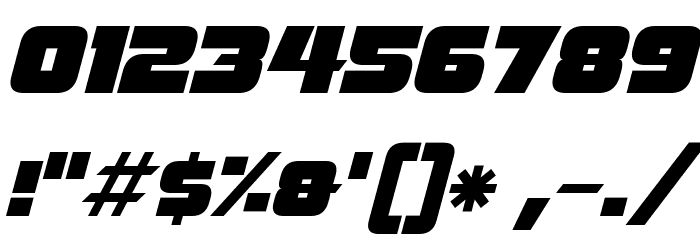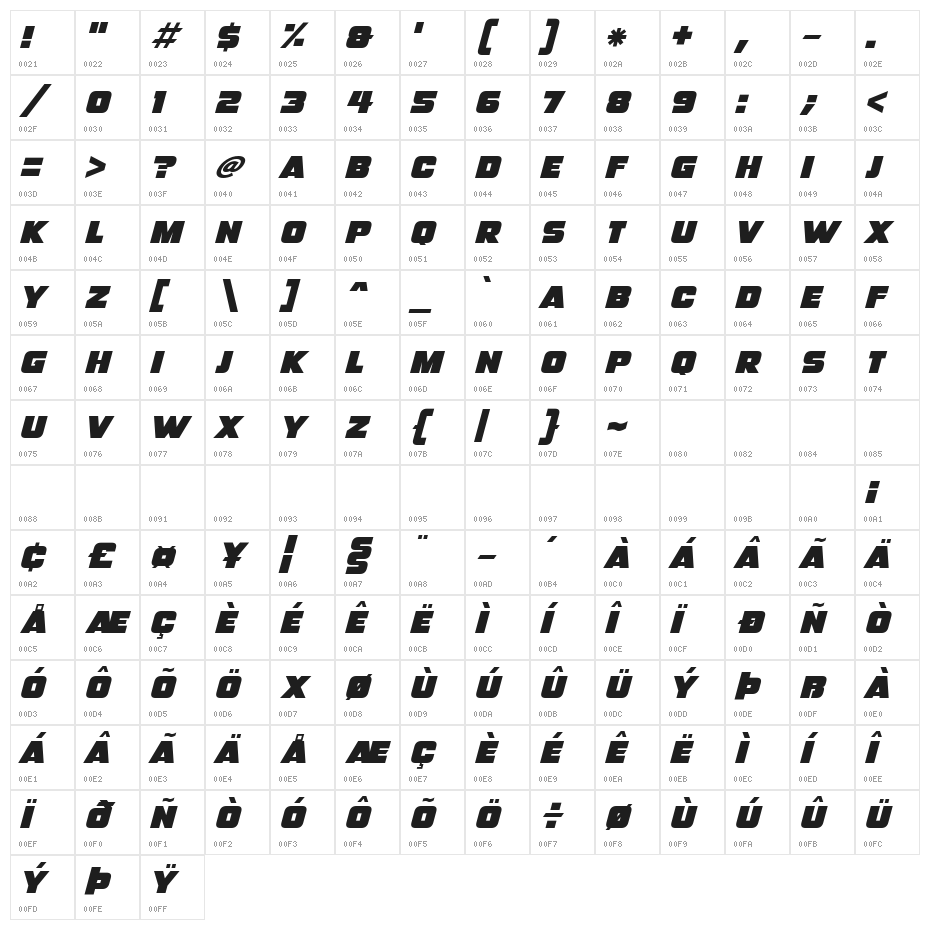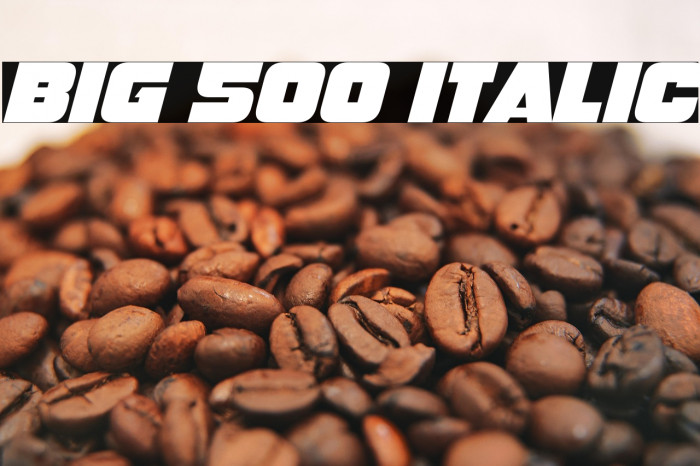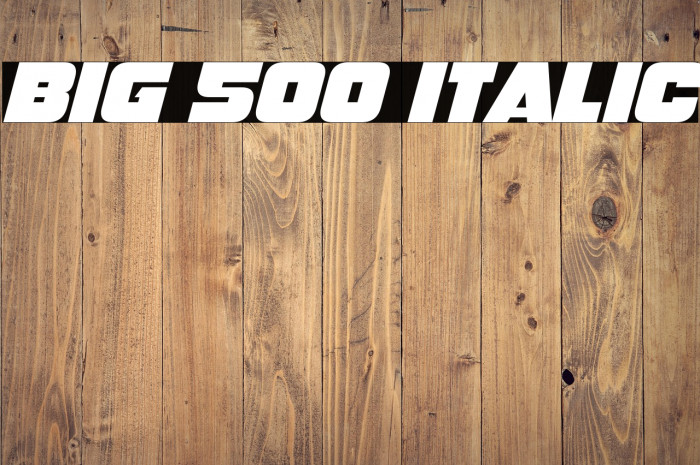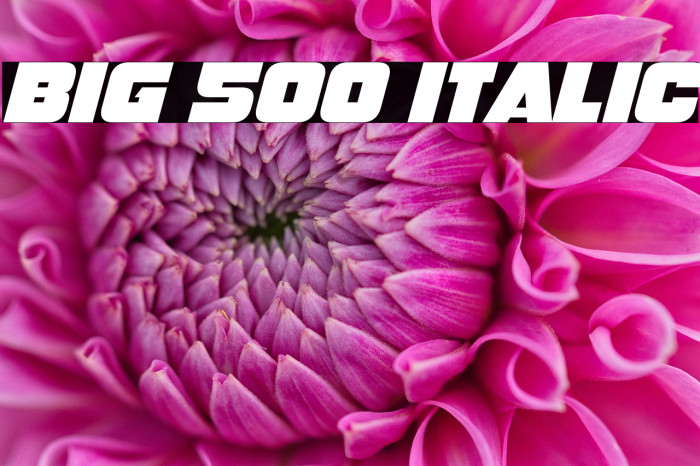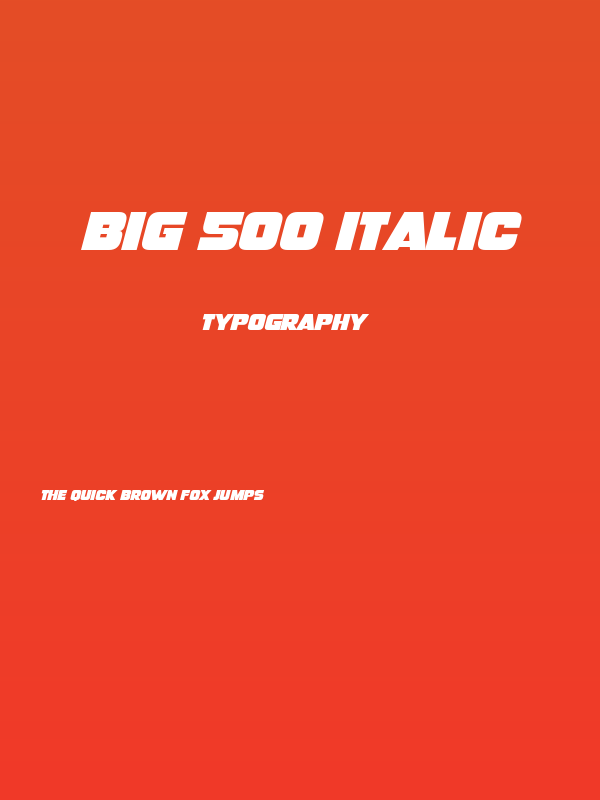
Big 500 Italic Font
Big 500 Italic Description
This font features a bold and dynamic style with a strong italic slant, giving it a sense of motion and energy. The characters are robust and wide, with a consistent thickness that conveys strength and stability. The uppercase and lowercase letters maintain a uniform appearance, ensuring readability while adding a modern flair. The numerals and special characters are designed to match the boldness of the alphabet, making them stand out effectively. This font's overall design is both impactful and versatile, suitable for various creative applications.